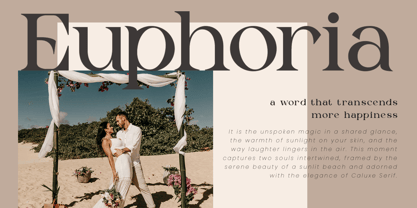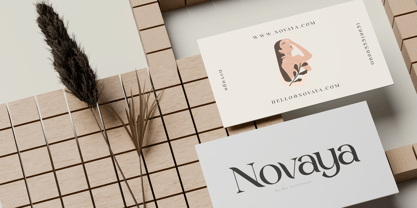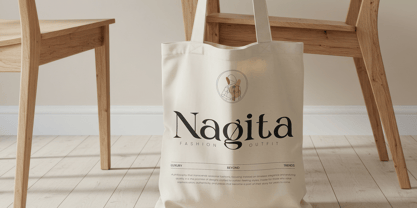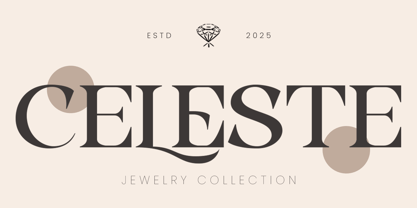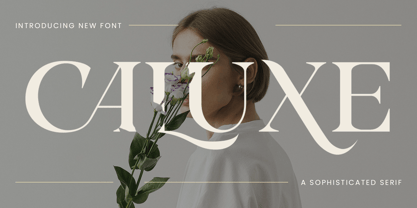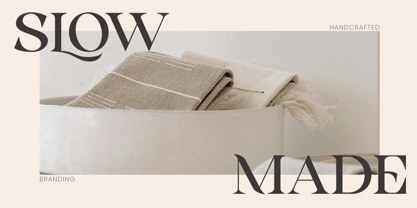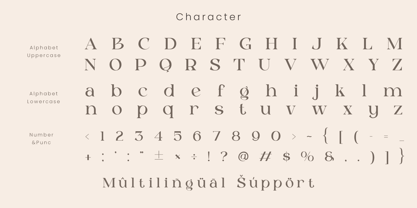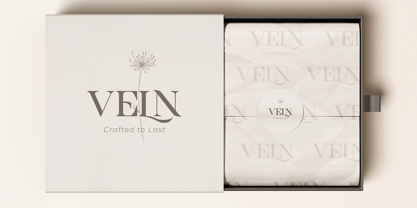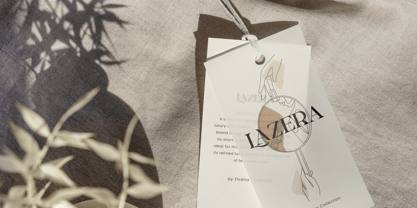
Caluxe
The Caluxe Font Family was designed by Bakhrudin Ja'far and published by Jafar07. Caluxe contains 2 styles and family package options.
Caluxe is a modern serif font crafted with sophistication and bold elegance. With its refined letterforms and graceful curves, Caluxe brings a sense of timeless style that works beautifully across a wide range of creative projects. More than just a serif, it is designed to give your work a polished and distinctive character. This typeface features strong contrast, balanced kerning, and clean yet expressive strokes that create harmony in every detail. Each letter is carefully shaped to maintain clarity and flexibility, making Caluxe equally effective for both large-scale displays and smaller text applications. Ideal for logos, branding projects, wedding stationery, magazines, product packaging, and social media design, Caluxe adapts effortlessly to different design needs. If you’re looking for a serif font that combines modern aest